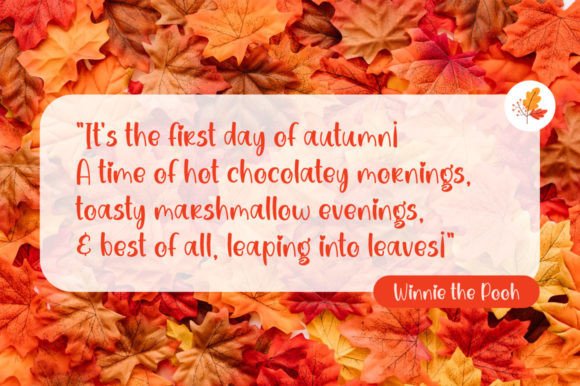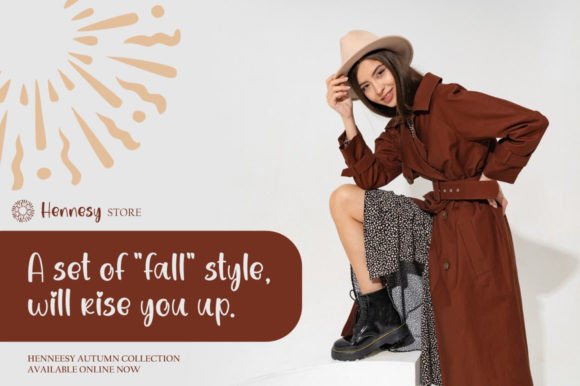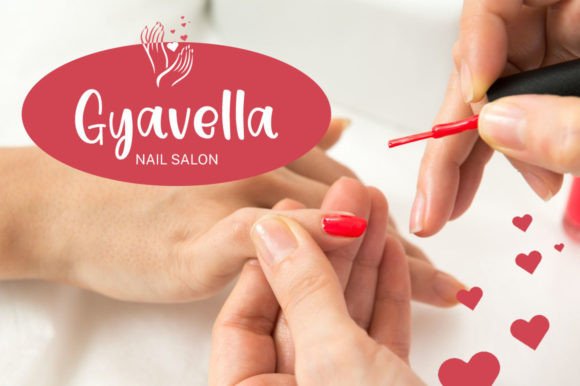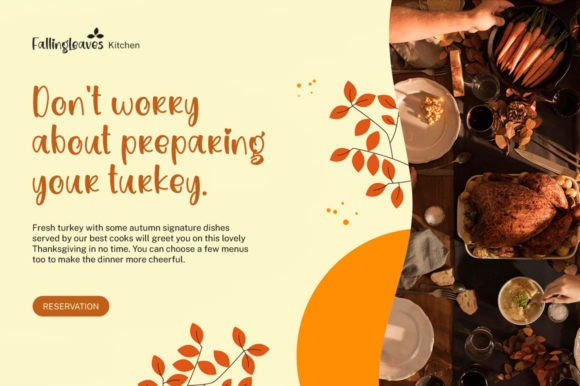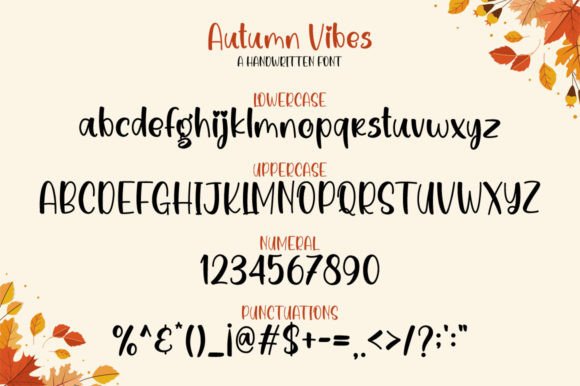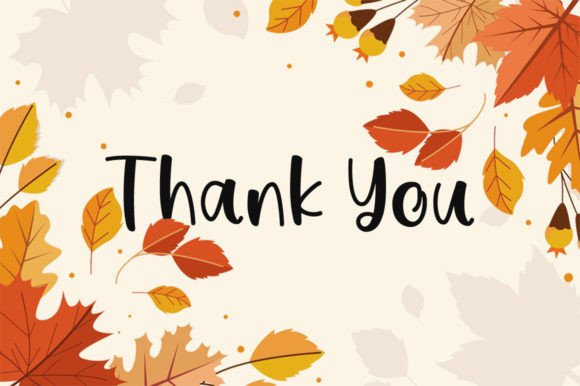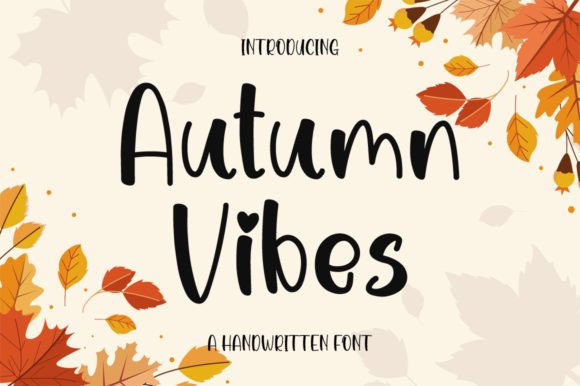
Welcome the Cozy Season with Autumn Vibes Font
As the leaves change colors and the air grows crisper, designers and crafters alike are on the lookout for the perfect font to capture the essence of the autumn season. Look no further than the Autumn Vibes Font, a fun and smart-looking handwritten font that’s sure to add a touch of warmth and coziness to any design.
What is Autumn Vibes Font?
Autumn Vibes is a beautifully crafted handwritten font that’s perfect for adding a personal touch to any design. With its unique blend of elegance and playfulness, this font is ideal for use on invitations, thank you cards, quotes, greeting cards, logos, business cards, and more.
Key Features of Autumn Vibes Font
- Handwritten with love: Autumn Vibes Font is carefully crafted to mimic the look and feel of handwritten text, giving your designs a personal and human touch.
- Smart and fun: This font is both intelligent and playful, making it perfect for use in a wide range of designs, from formal invitations to casual social media posts.
- Highly versatile: Whether you’re designing for print or digital, Autumn Vibes Font is the perfect choice for any project that requires a customized touch.
- Easily readable: With its clear and legible design, Autumn Vibes Font is easy to read, even at small sizes.
Uses for Autumn Vibes Font
Autumn Vibes Font is perfect for a wide range of design projects, including:
- Invitations: Add a touch of elegance and sophistication to your wedding invitations, birthday party invites, or other special event announcements.
- Thank you cards: Express your gratitude with a beautifully designed thank you card, featuring Autumn Vibes Font.
- Quotes and posters: Create inspiring and eye-catching quotes and posters using Autumn Vibes Font.
- Greeting cards: Design beautiful greeting cards for holidays, birthdays, and other special occasions.
- Logos and branding: Use Autumn Vibes Font to create a unique and memorable logo for your business or brand.
- Business cards: Stand out from the crowd with a beautifully designed business card featuring Autumn Vibes Font.
Why Choose Autumn Vibes Font?
With so many fonts to choose from, why should you choose Autumn Vibes Font? Here are just a few reasons:
- Unique and eye-catching: Autumn Vibes Font is a one-of-a-kind font that’s sure to grab attention and make your designs stand out.
- High-quality design: Autumn Vibes Font is carefully crafted to ensure that it looks great in any design, whether you’re using it for print or digital.
Tips for Using Autumn Vibes Font
Here are a few tips for getting the most out of Autumn Vibes Font:
- Experiment with different sizes and colors: Autumn Vibes Font looks great in a wide range of sizes and colors, so don’t be afraid to experiment and find the perfect combination for your design.
- Pair it with other fonts: Autumn Vibes Font pairs well with a wide range of other fonts, so try combining it with other fonts to create a unique and eye-catching design.
- Use it for headings and titles: Autumn Vibes Font is perfect for use as a heading or title font, adding a touch of elegance and sophistication to your designs.